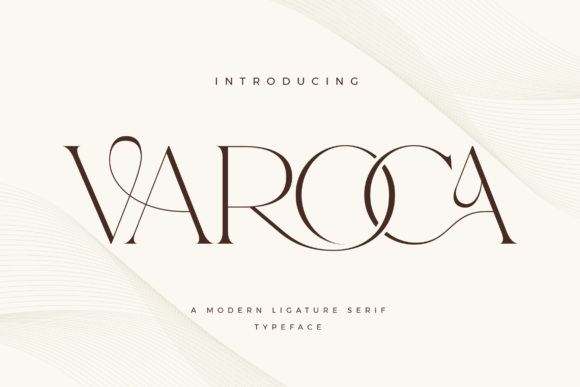
Introducing Varoca Font: The Ultimate Stylish Ligature Typeface for Modern Design
In the world of graphic design, typography plays a crucial role in conveying messages, expressing creativity, and building brand identities. Among the numerous fonts available, Varoca Font stands out as a stylish ligature typeface that has gained significant attention for its minimalist yet impactful design. Inspired by famous logos, Varoca Font is perfect for designing templates, brochures, videos, advertising branding, logos, and more.
The Inspiration Behind Varoca Font
Varoca Font draws inspiration from the minimalist logo design trend, which emphasizes simplicity, clean lines, and a limited color palette. The font’s creator aimed to craft a typeface that embodies the same principles, making it ideal for designers seeking to create modern, sophisticated, and elegant visual content.
Key Features of Varoca Font
Varoca Font boasts several key features that make it an attractive choice for designers:
- Stylish Ligatures: Varoca Font features beautiful ligatures, which are special character combinations that create a unique and harmonious visual effect.
- Clean and Minimalist Design: The font’s design is characterized by clean lines, simple shapes, and a minimalist approach, making it perfect for modern designs.
- High Versatility: Varoca Font can be used for a wide range of design projects, from logos and branding to brochures, videos, and advertising.
- Ease of Readability: The font’s clear and legible design ensures that your message is conveyed effectively, even at small font sizes.
Use Cases for Varoca Font
Varoca Font’s versatility makes it suitable for various design applications:
1. Logo Design and Branding
Varoca Font is perfect for creating modern, stylish logos that make a lasting impression. Its clean design and ligatures ensure that your brand’s identity stands out.
2. Brochures and Marketing Materials
Use Varoca Font to create visually appealing brochures, flyers, and other marketing materials that require a professional, modern look.
3. Video and Motion Graphics
Varoca Font’s stylish design makes it an excellent choice for video titles, subtitles, and motion graphics, adding a touch of sophistication to your visual content.
4. Advertising and Print Media
The font’s high readability and clean design make it suitable for use in advertising, newspapers, magazines, and other print media.
Tips for Using Varoca Font Effectively
To get the most out of Varoca Font, consider the following tips:
- Pair with Other Fonts: Combine Varoca Font with complementary fonts to create visual interest and hierarchy in your design.
- Experiment with Ligatures: Take advantage of Varoca Font’s ligatures to add a touch of elegance and sophistication to your design.
- Adjust Font Sizes and Weights: Use different font sizes and weights to create visual hierarchy and emphasize important information.
Varoca Font is a versatile and stylish ligature typeface that offers a wide range of creative possibilities for designers. Its minimalist design, clean lines, and beautiful ligatures make it perfect for modern designs, from logos and branding to brochures, videos, and advertising. By incorporating Varoca Font into your design projects, you can create visually stunning and effective visual content that resonates with your audience.
Varoca Stylish Ligature Typeface in Action
To illustrate the font’s potential, here are some examples of Varoca Font in use:
Varoca Font used in a logo design project, showcasing its clean and stylish design.
Varoca Font used in a brochure design project, demonstrating its versatility and readability.
Varoca Font used in a video title sequence, highlighting its elegant and sophisticated design.
Varoca Font: A Valuable Resource for Designers
Varoca Font is a valuable resource for designers seeking to create modern, stylish, and effective visual content. Its unique combination of clean design, ligatures, and versatility makes it an attractive choice for a wide range of design applications. By incorporating Varoca Font into your design workflow, you can elevate your designs and create a lasting impression on your audience.